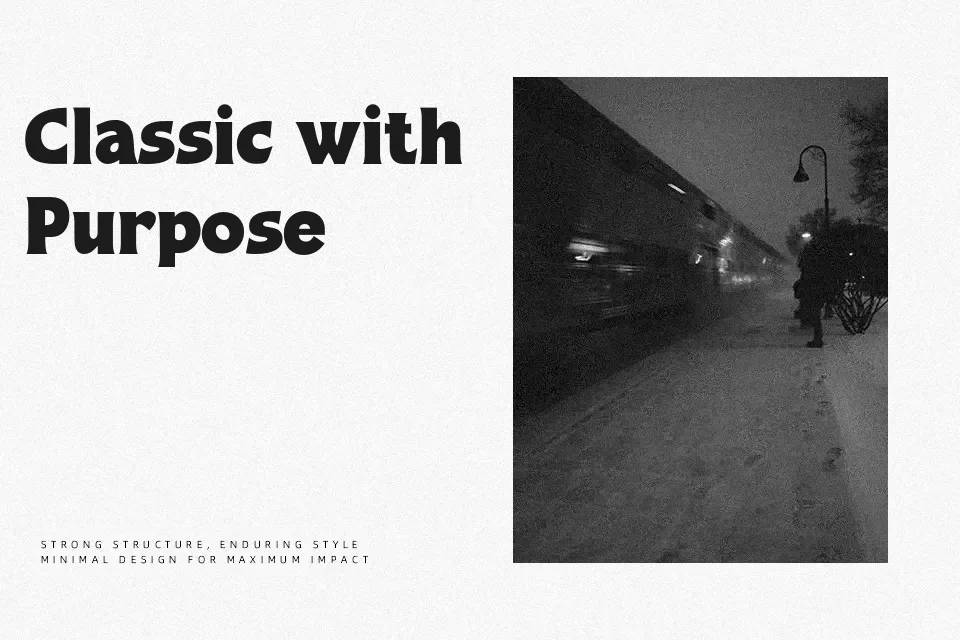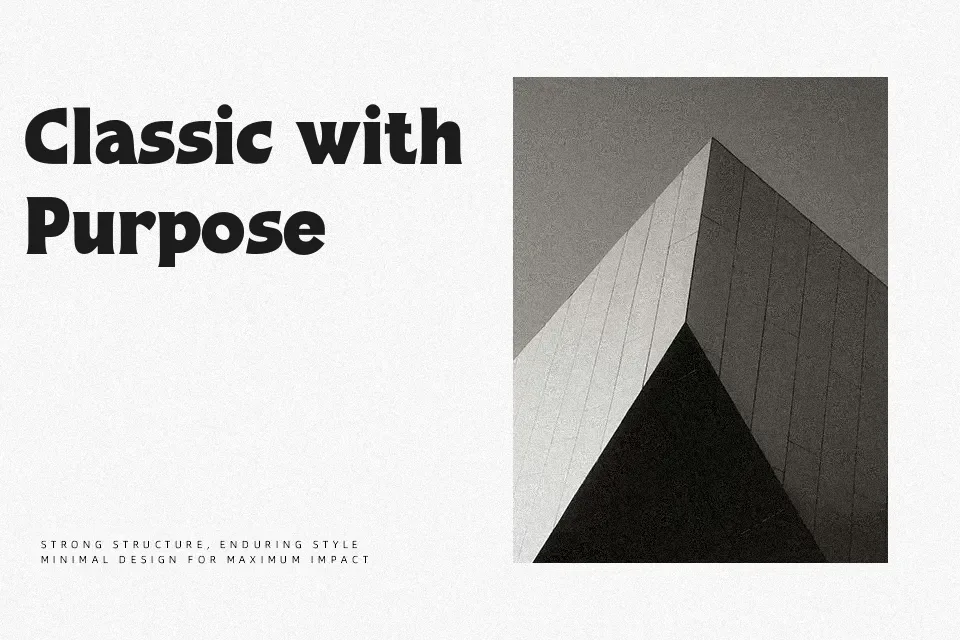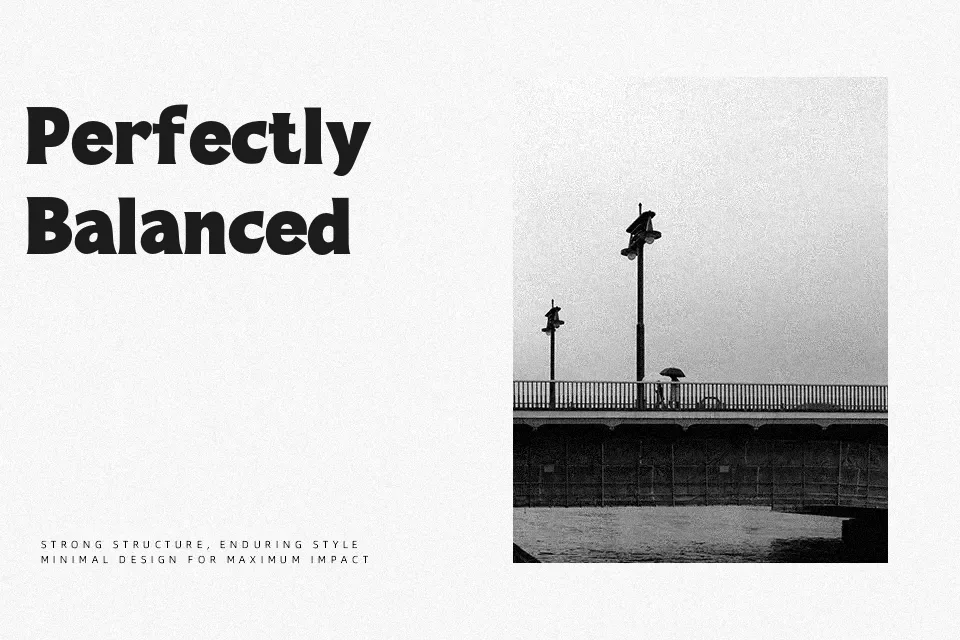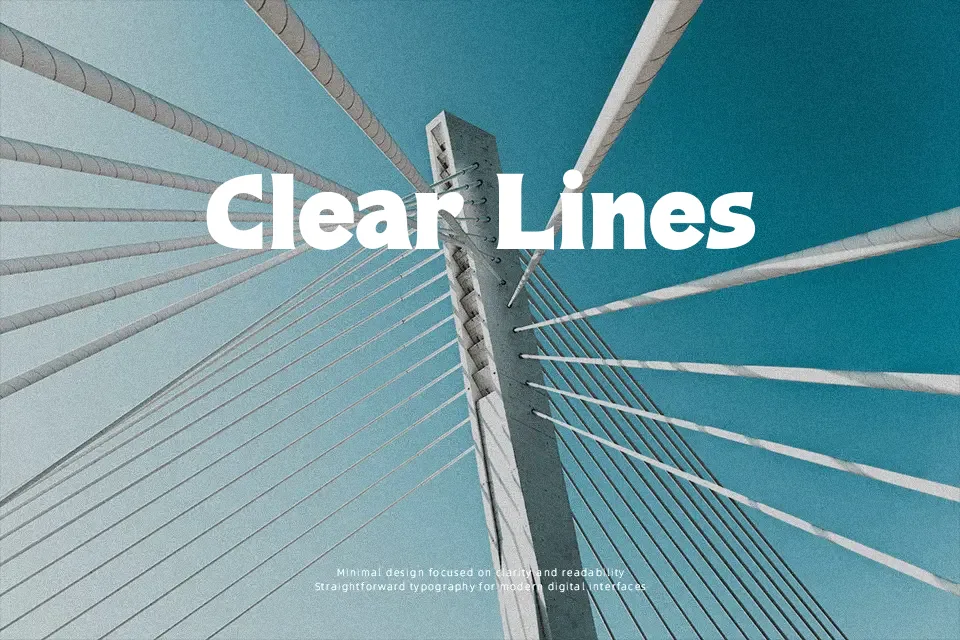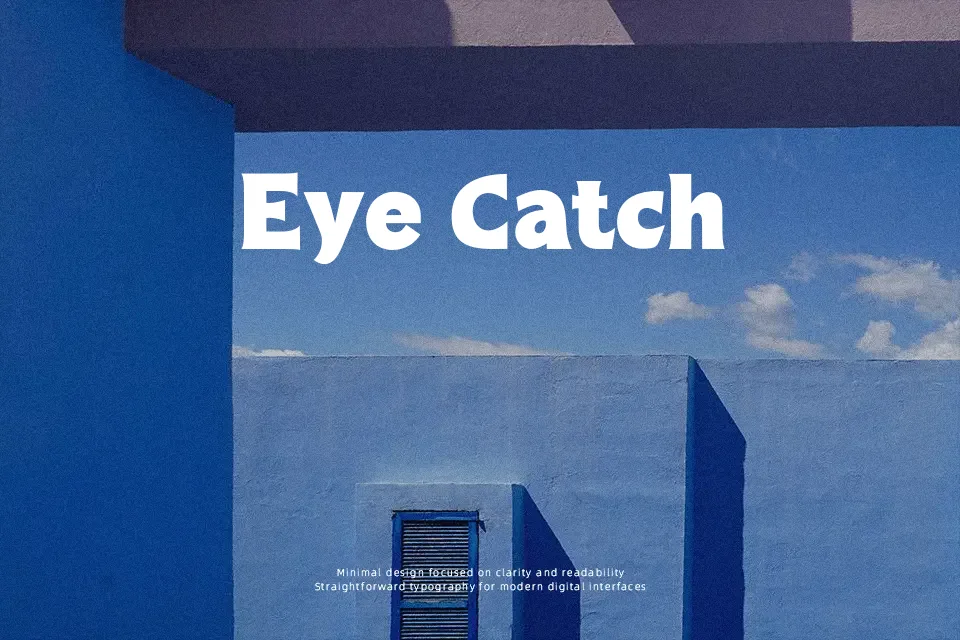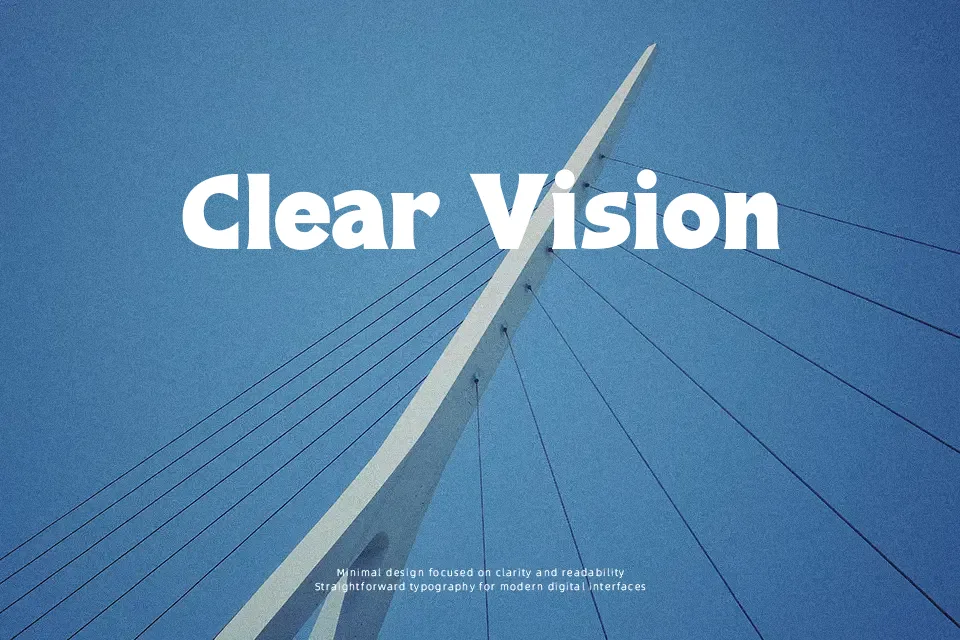
Sunfice Font
Designed by Måns Grebäck
Sunfice Font introduces a heavyweight retro character built with commanding strokes, subtle wedge-like terminals, and balanced proportions. The letterforms carry substantial visual weight, maintaining distinct clarity across large display headings and creative branding assets. Moderate spacing prevents the dense glyph architecture from crowding adjacent characters in punchy titles. However, the thick stroke profiles and pronounced styling reduce reading comfort in extended body passages and small-scale captions. The design excels when deployed as a focal typography element, offering strong contrast and vintage authority without sacrificing structural stability across modern print or digital layouts.
Best For: vintage packaging labels, retro merchandise graphics, promotional headline banners, craft brewery branding
Not Ideal For: continuous editorial body text, mobile interface captions, technical manuals, dense spreadsheet data